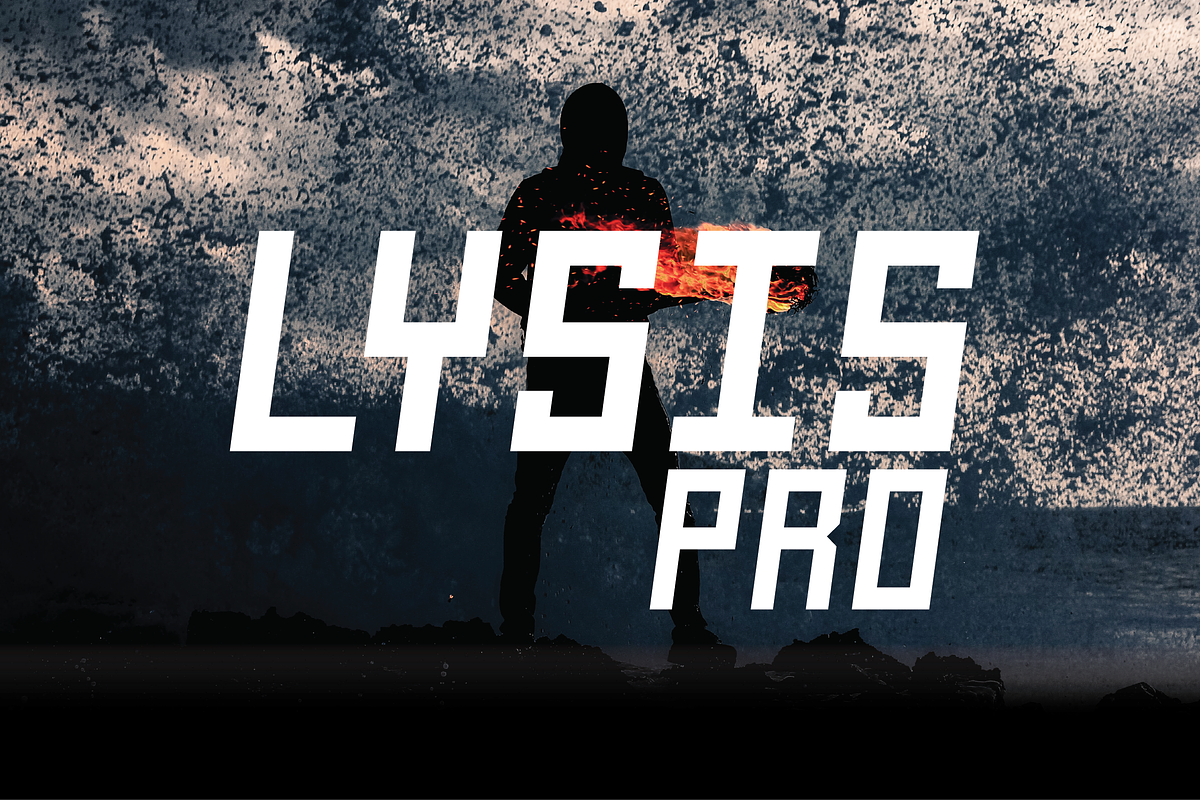
Lysis Pro Free Download
Lysis Pro Font Free Download
Lysis Pro Font Free Download is a clean, contemporary sans serif typeface that combines geometric precision with modern aesthetics. With its minimalistic design, wide spacing, and excellent legibility, Lysis Pro is perfect for a variety of uses, including branding, editorial design, web interfaces, signage, and digital graphics.
Its neutral and professional appearance ensures that it works well across both large-scale designs and small text applications, making it versatile for all your creative projects. Whether you're building a modern brand identity or designing sleek user interfaces, Lysis Pro offers both clarity and elegance.